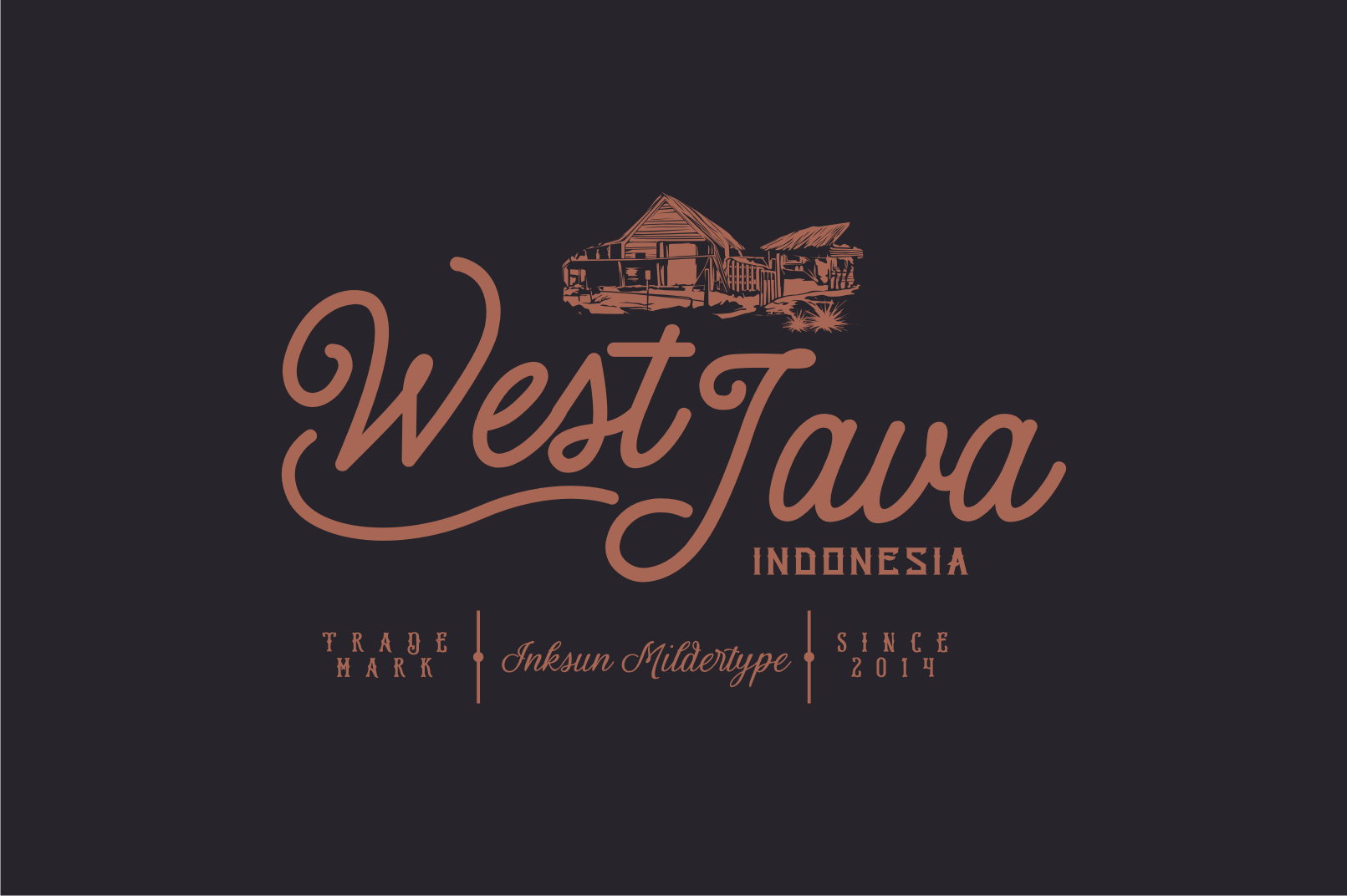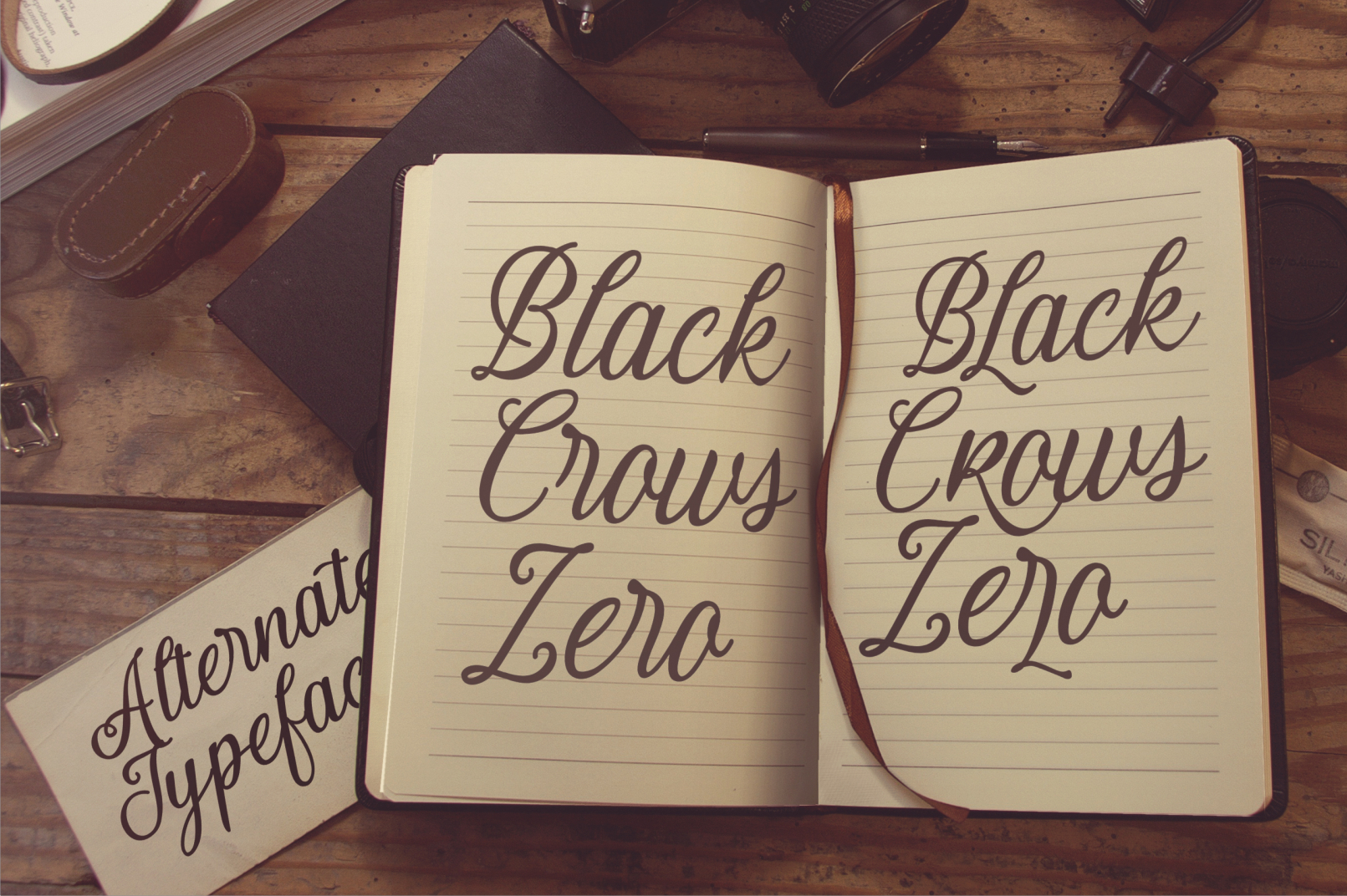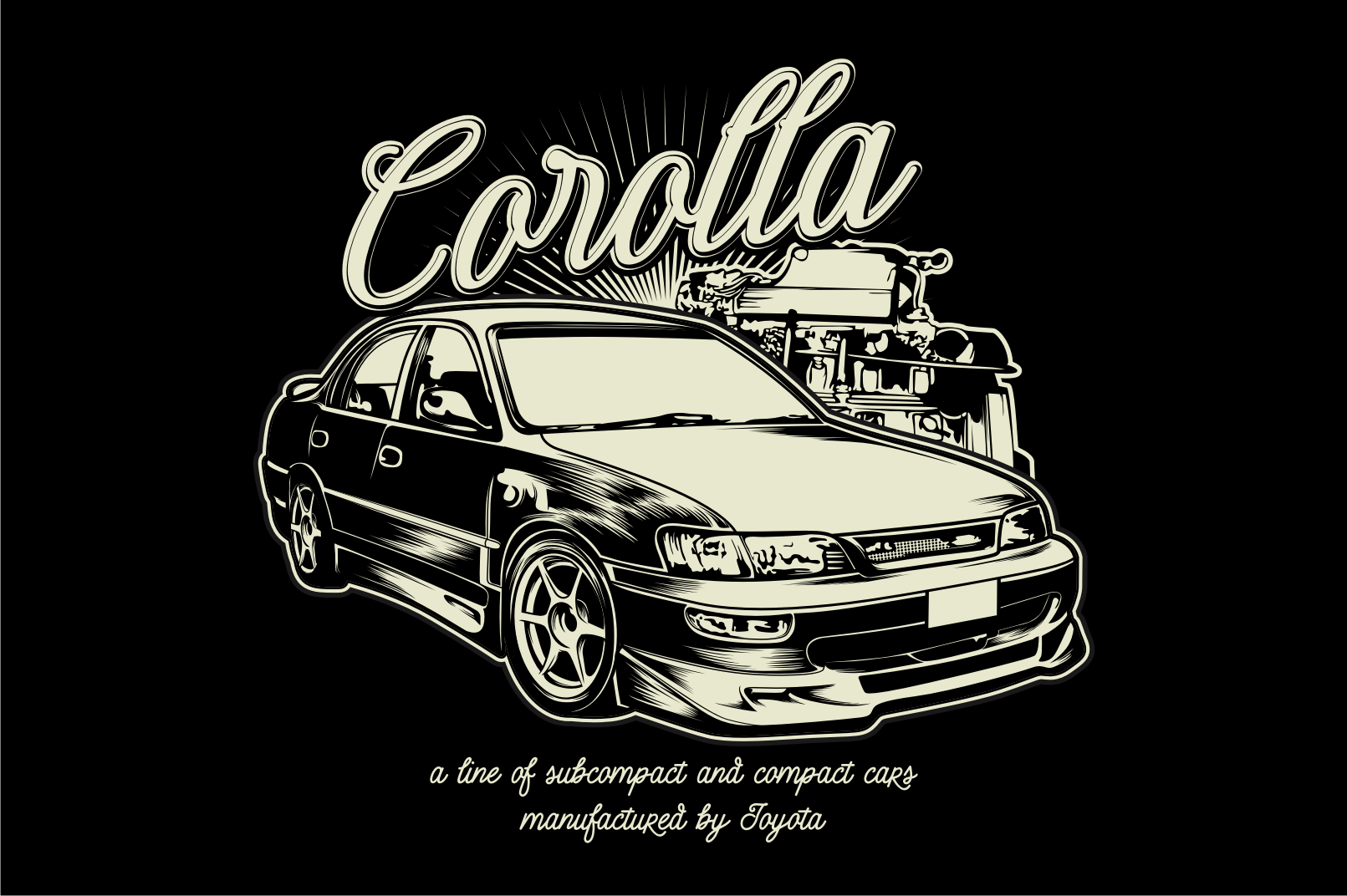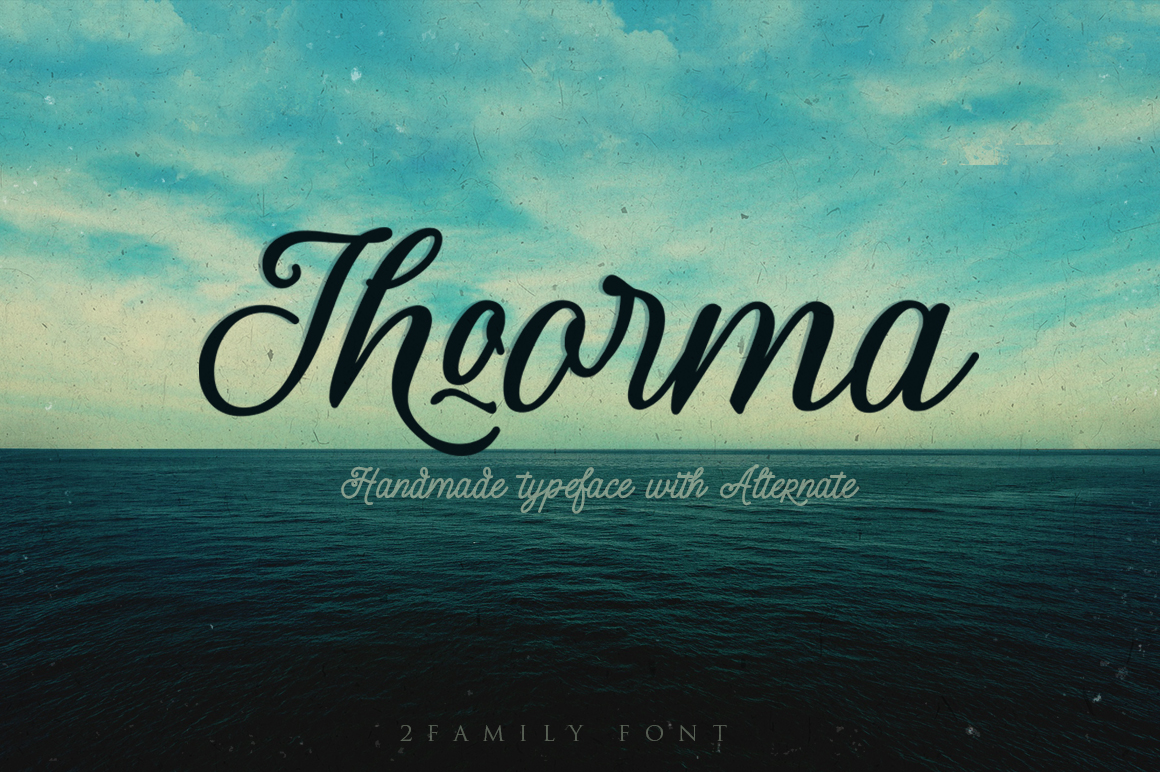
Thoorma Script Font
Thoorma is handlettring font specifically designed with a variety of alternate, ideal for posters, t shirts, typography, writing etc.
| Classification: | Calligraphy Fonts, Handwritten Fonts, Script Fonts |